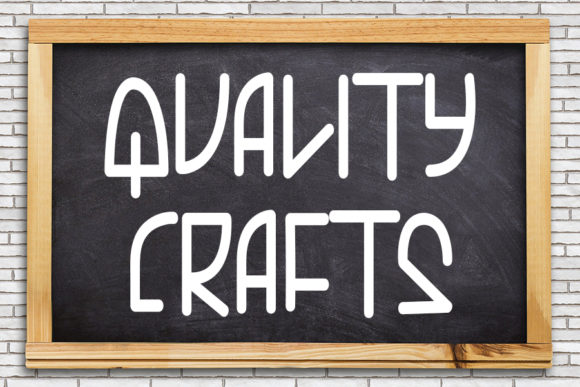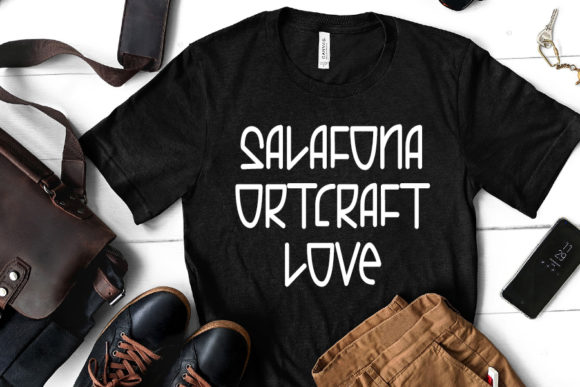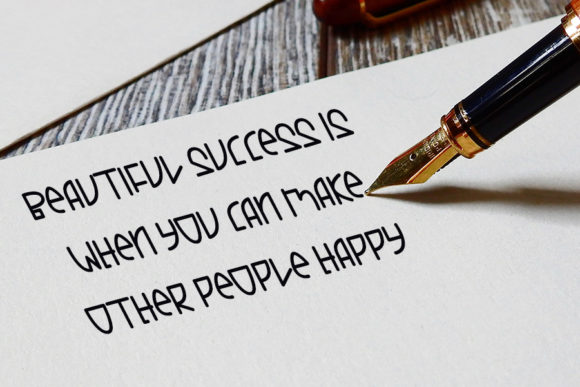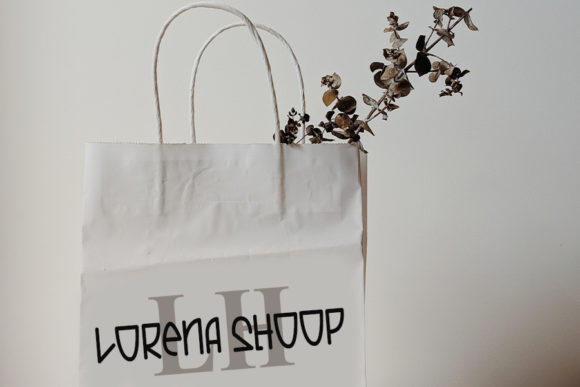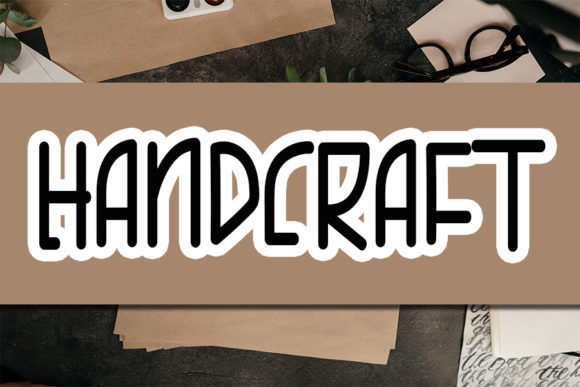
Introducing Handcraft Font: The Perfect Techno Display Font for Your Creative Projects
Are you a designer or crafter looking for a unique and versatile font to elevate your creative projects? Look no further than Handcraft Font, a simple and neat techno display font that’s perfect for a wide range of applications. In this article, we’ll explore the features and benefits of Handcraft Font, and show you how it can help take your branding, packaging, and design projects to the next level.
What is Handcraft Font?
Handcraft Font is a techno display font that’s designed to be both modern and elegant. Its clean lines and simple shapes make it perfect for use in a variety of contexts, from product packaging and branding to invitations, quotes, and more. Whether you’re looking to create a bold and eye-catching design or a more subtle and sophisticated look, Handcraft Font is the perfect choice.
Key Features of Handcraft Font
- Simple and Neat Design: Handcraft Font features a clean and minimalist design that’s perfect for creating modern and elegant designs.
- Techno Display Font: With its bold and futuristic look, Handcraft Font is perfect for use in techno-inspired designs and projects.
- Versatile: Handcraft Font is suitable for use in a wide range of applications, including branding, product packaging, invitations, quotes, t-shirts, labels, posters, and more.
- Easily Readable: Despite its bold and futuristic look, Handcraft Font is surprisingly easy to read, making it perfect for use in designs where clarity is key.
Benefits of Using Handcraft Font
So why choose Handcraft Font for your design projects? Here are just a few benefits of using this versatile and modern font:
- Instant Recognition: With its bold and eye-catching design, Handcraft Font is sure to grab attention and make your designs stand out.
- Flexibility: Handcraft Font is suitable for use in a wide range of applications, making it a great addition to any designer’s font library.
- Easy to Pair: Handcraft Font pairs well with a wide range of other fonts, making it easy to create harmonious and visually appealing designs.
- High-Quality Design: Handcraft Font is designed to the highest standards, ensuring that your designs look professional and polished.
Use Cases for Handcraft Font
So what can you use Handcraft Font for? Here are just a few ideas to get you started:
- Branding: Use Handcraft Font to create bold and eye-catching logos and branding materials that make your business stand out.
- Product Packaging: Add a touch of modern elegance to your product packaging with Handcraft Font.
- Invitations: Create stylish and sophisticated invitations for weddings, parties, and other special events.
- Quotes and Posters: Use Handcraft Font to create inspiring and thought-provoking quotes and posters that grab attention.
- T-Shirts and Merchandise: Create stylish and eye-catching t-shirts and merchandise with Handcraft Font.
In conclusion, Handcraft Font is a versatile and modern techno display font that’s perfect for a wide range of design projects. With its simple and neat design, bold and futuristic look, and ease of use, Handcraft Font is a great addition to any designer’s font library. Whether you’re looking to create bold and eye-catching designs or more subtle and sophisticated looks, Handcraft Font is the perfect choice.